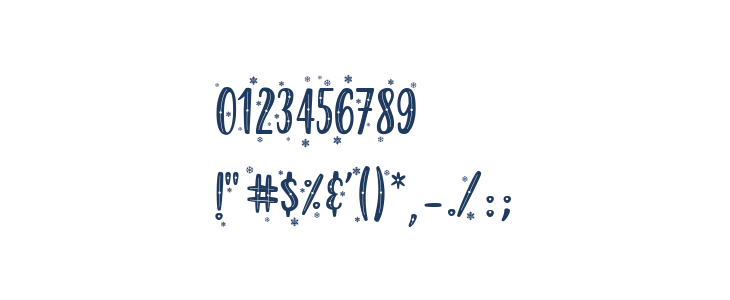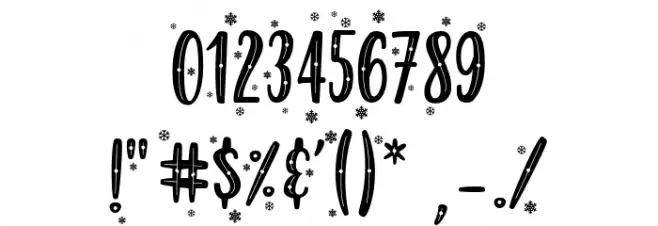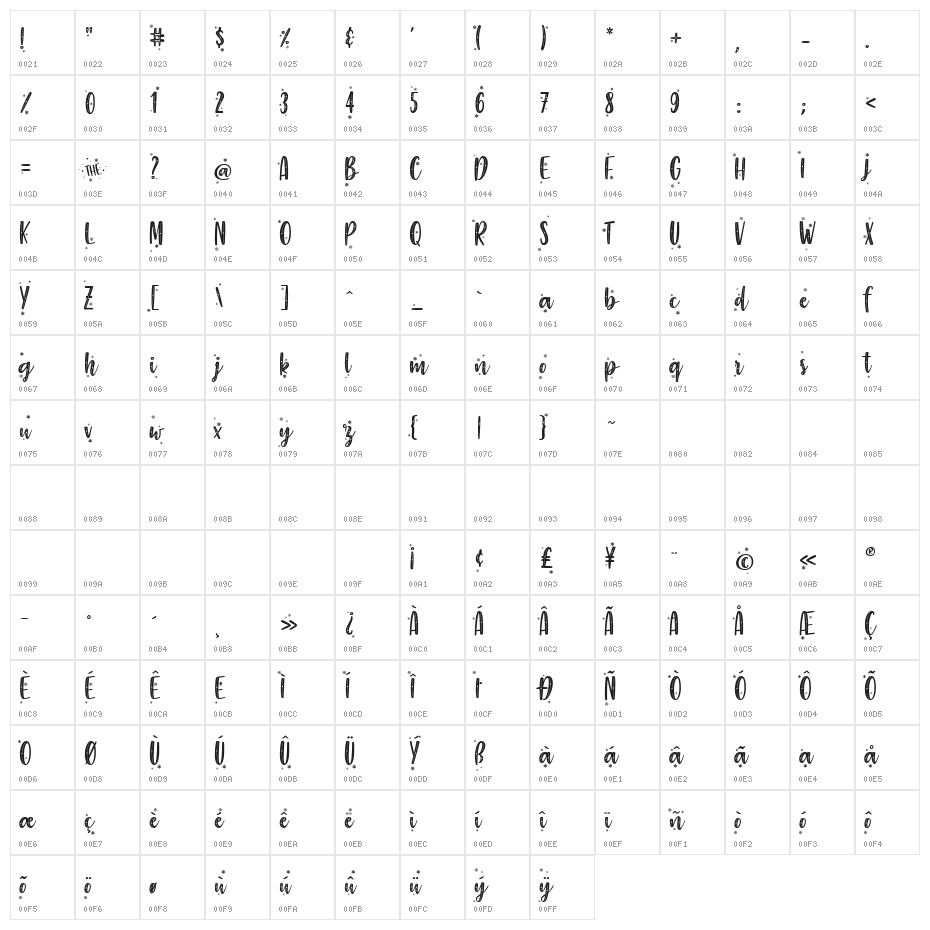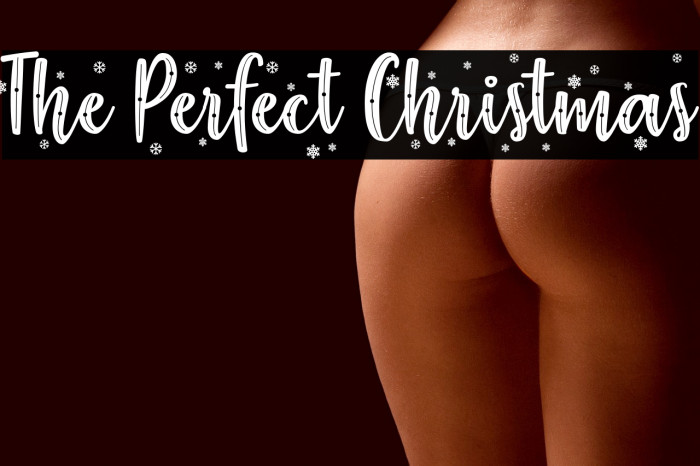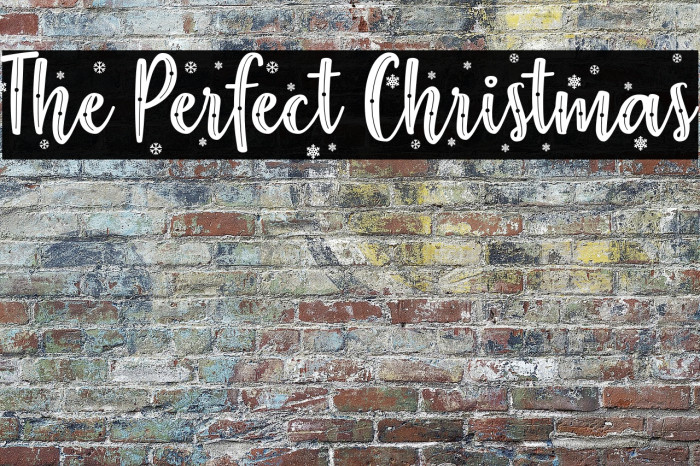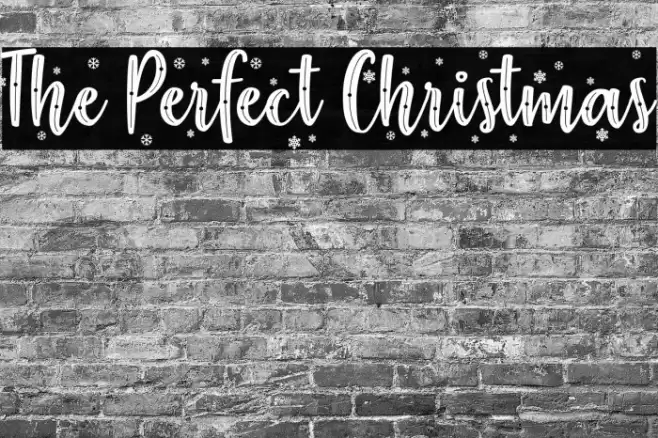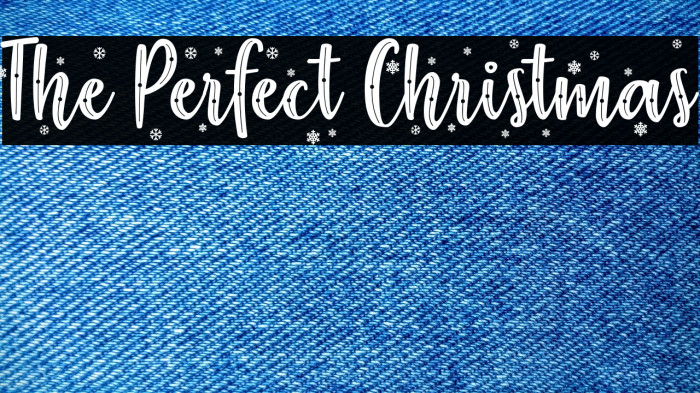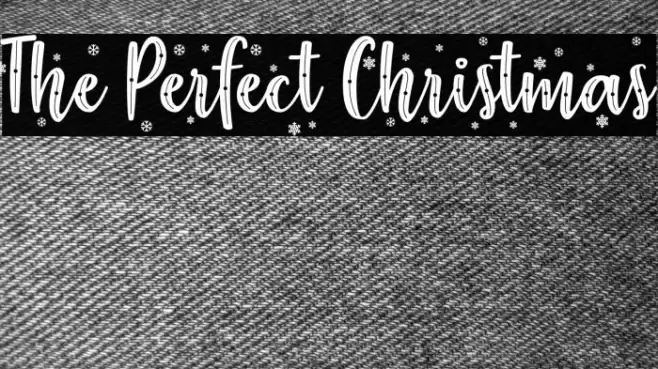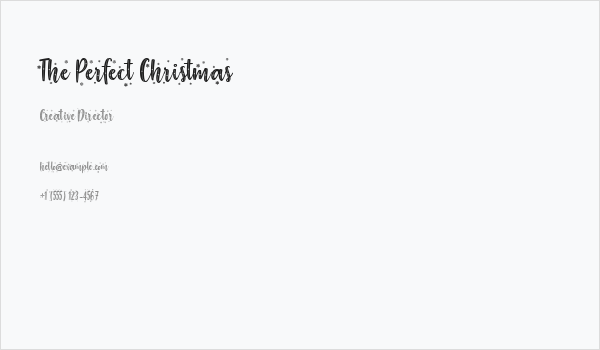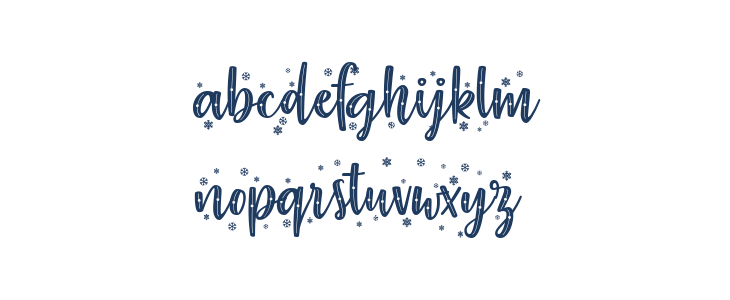
The Perfect Christmas Font
The Perfect Christmas Description
This font exudes a festive and playful charm, perfect for holiday-themed projects. The letters are adorned with snowflake accents, adding a whimsical touch to the overall design. The uppercase and lowercase characters maintain a consistent style, with a slight slant that gives a handwritten feel. The numerals and special characters are equally decorative, ensuring a cohesive look across all text elements. The font's unique style makes it ideal for creating eye-catching headlines, invitations, and seasonal graphics.
| Overall Style | Festive, Playful |
| Use Case | Headlines, Invitations, Seasonal Graphics |
| Proposed Projects | Ideal for Christmas cards, holiday invitations, festive posters, and seasonal branding. |